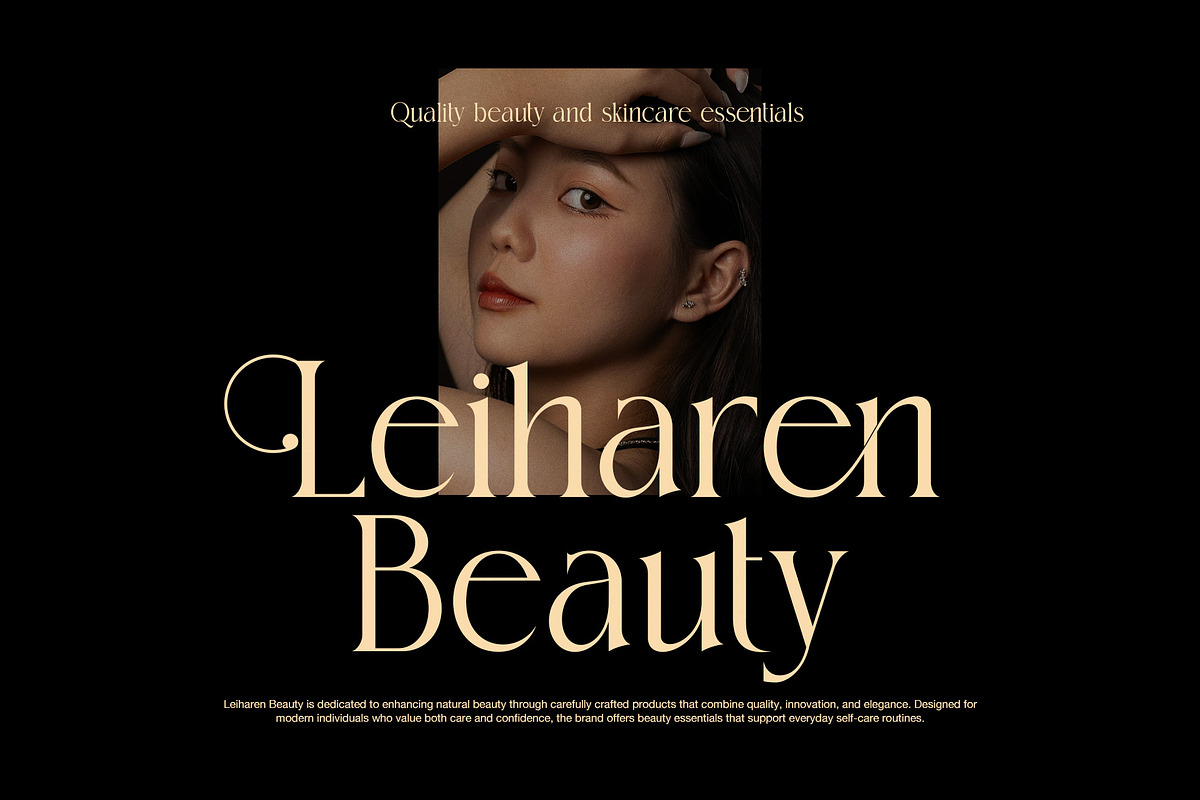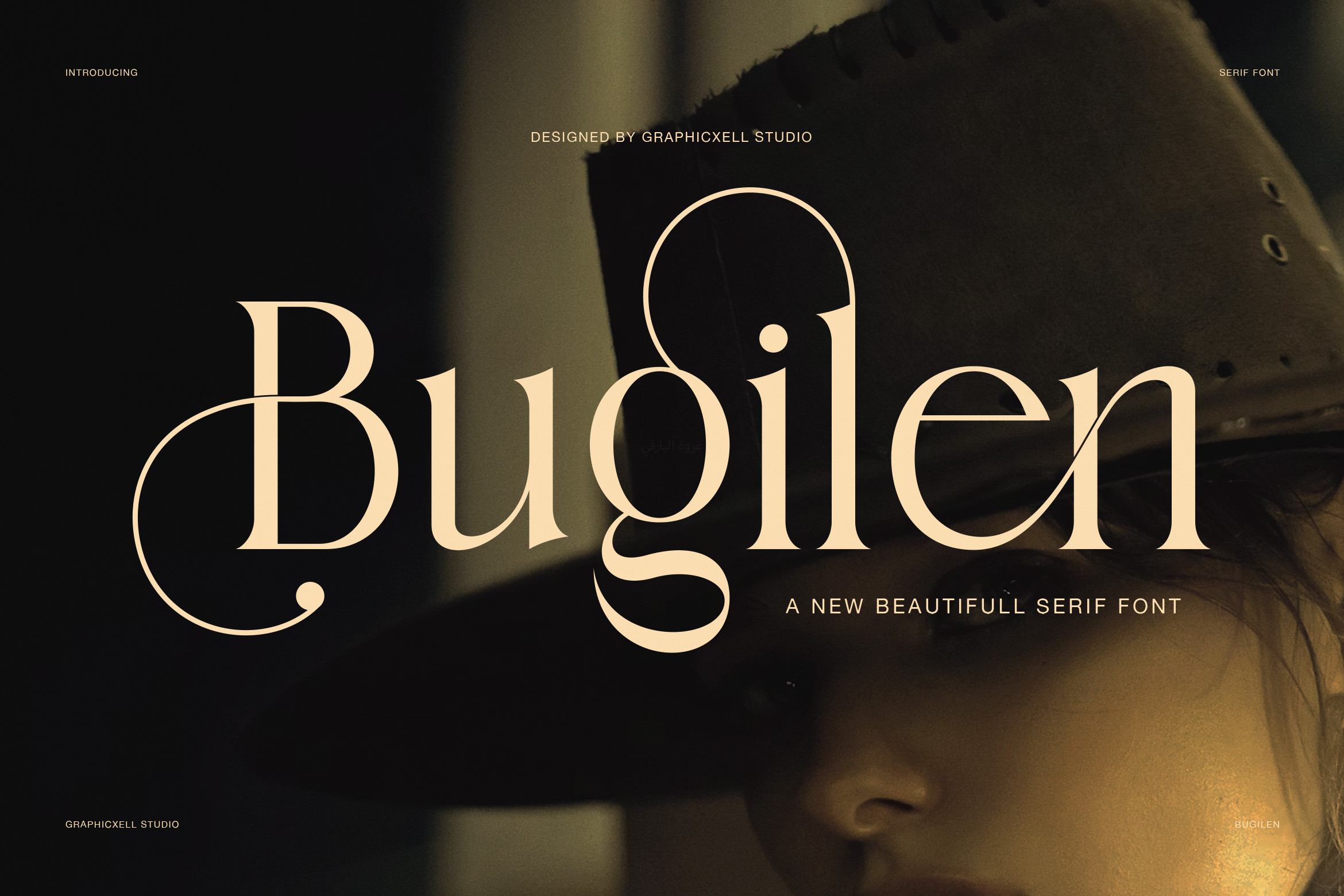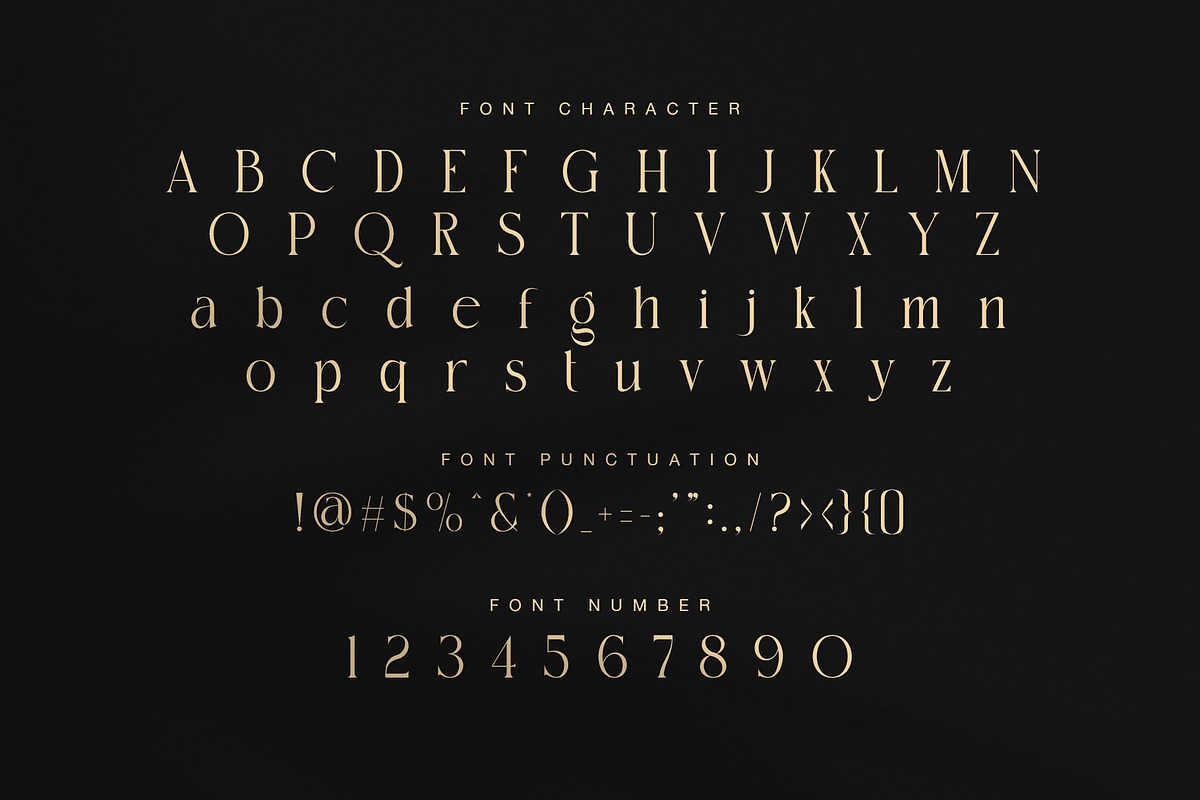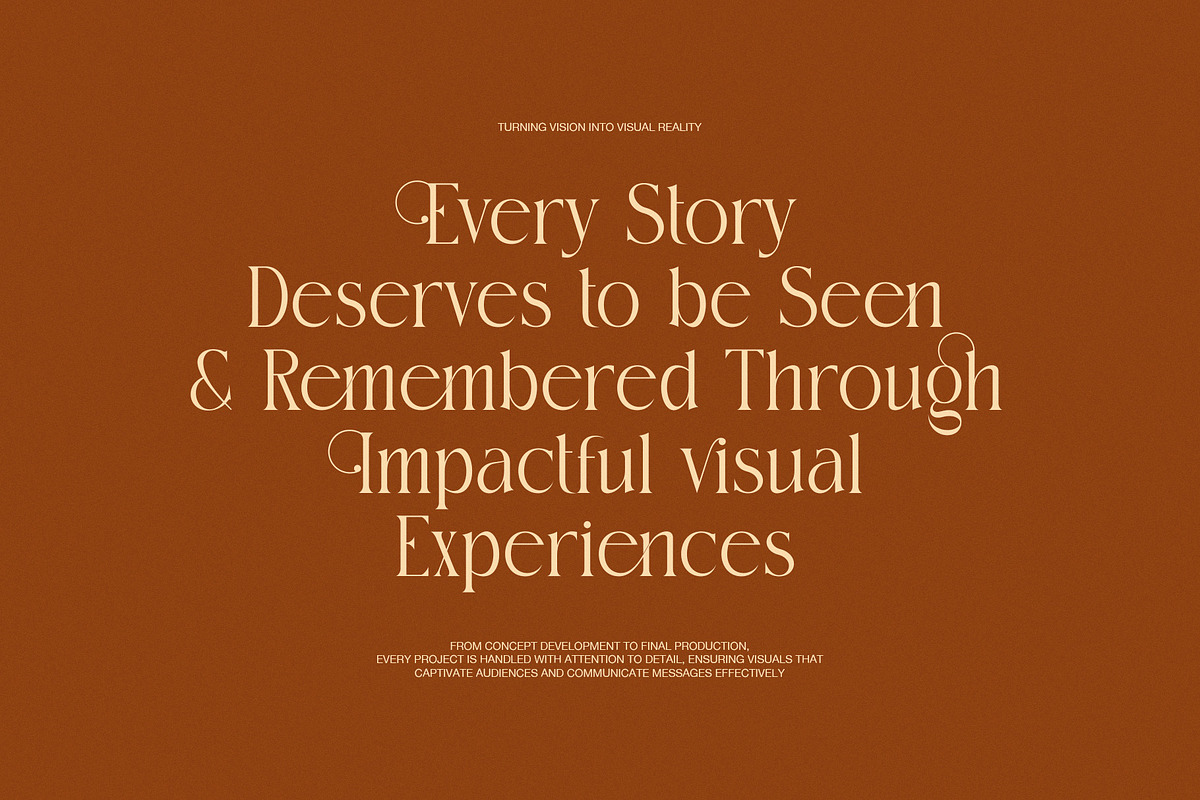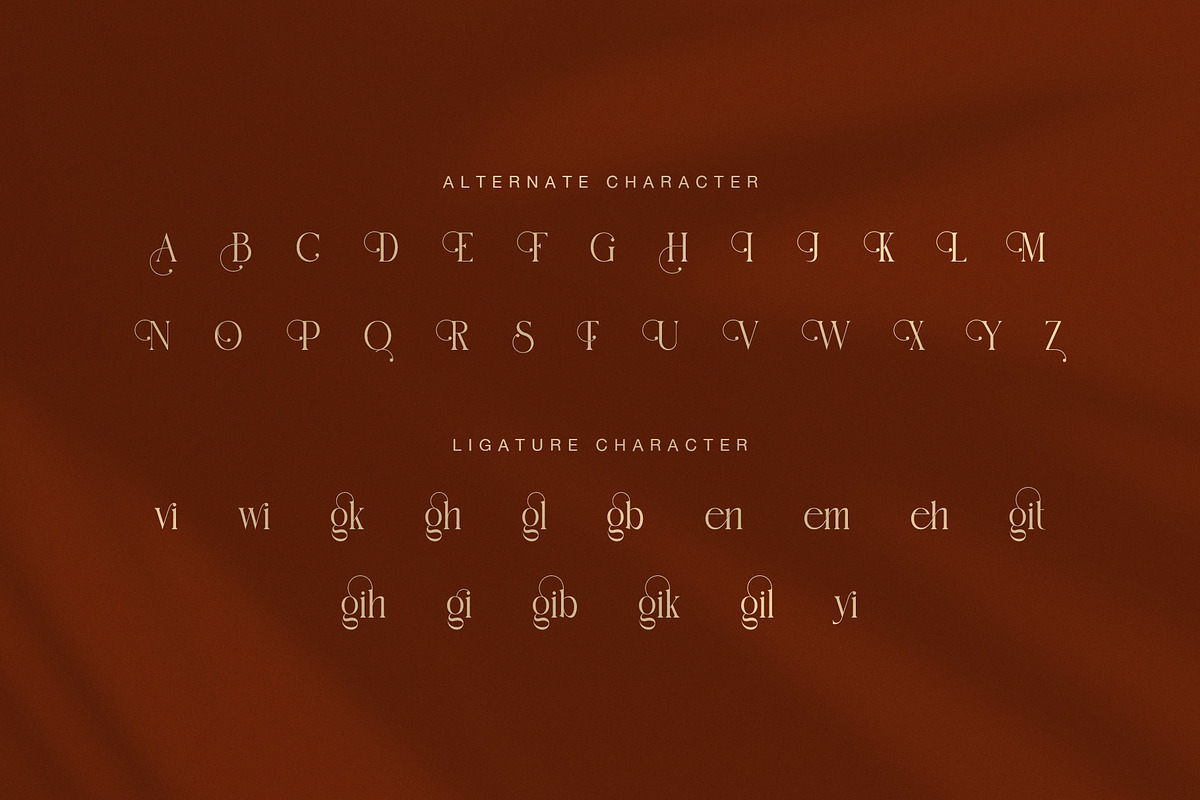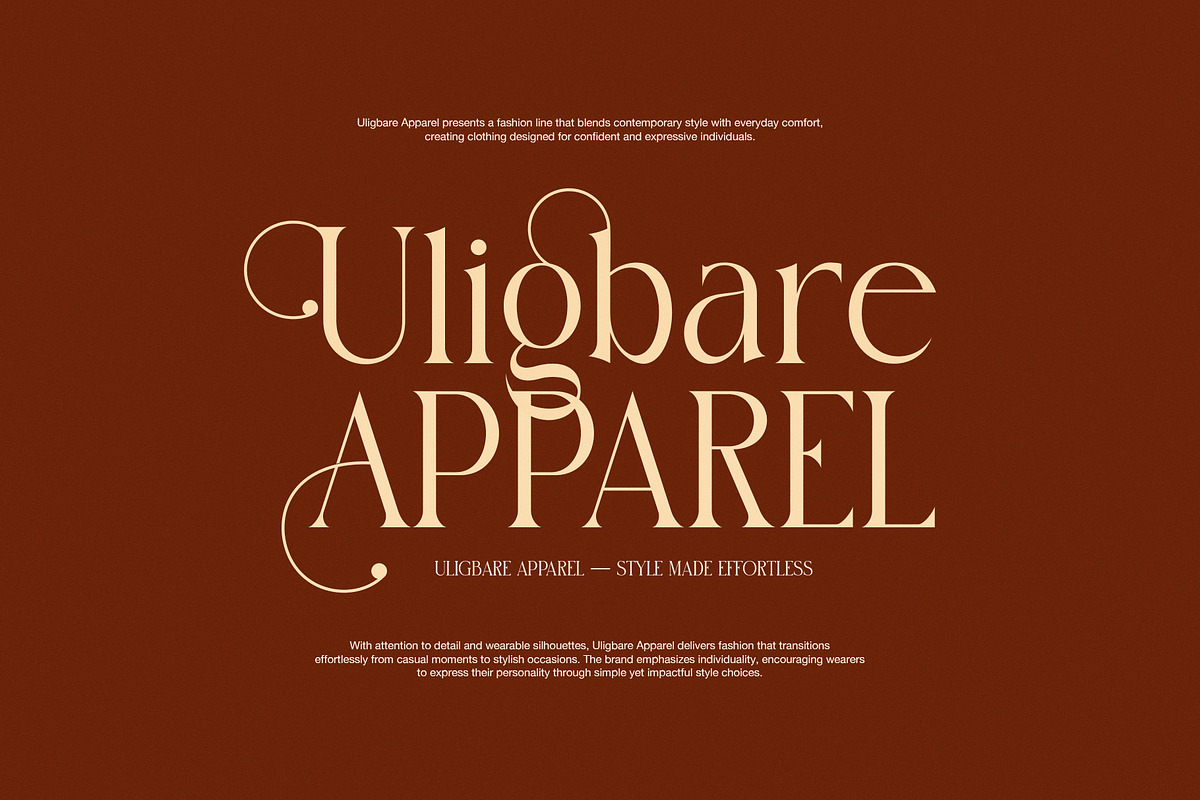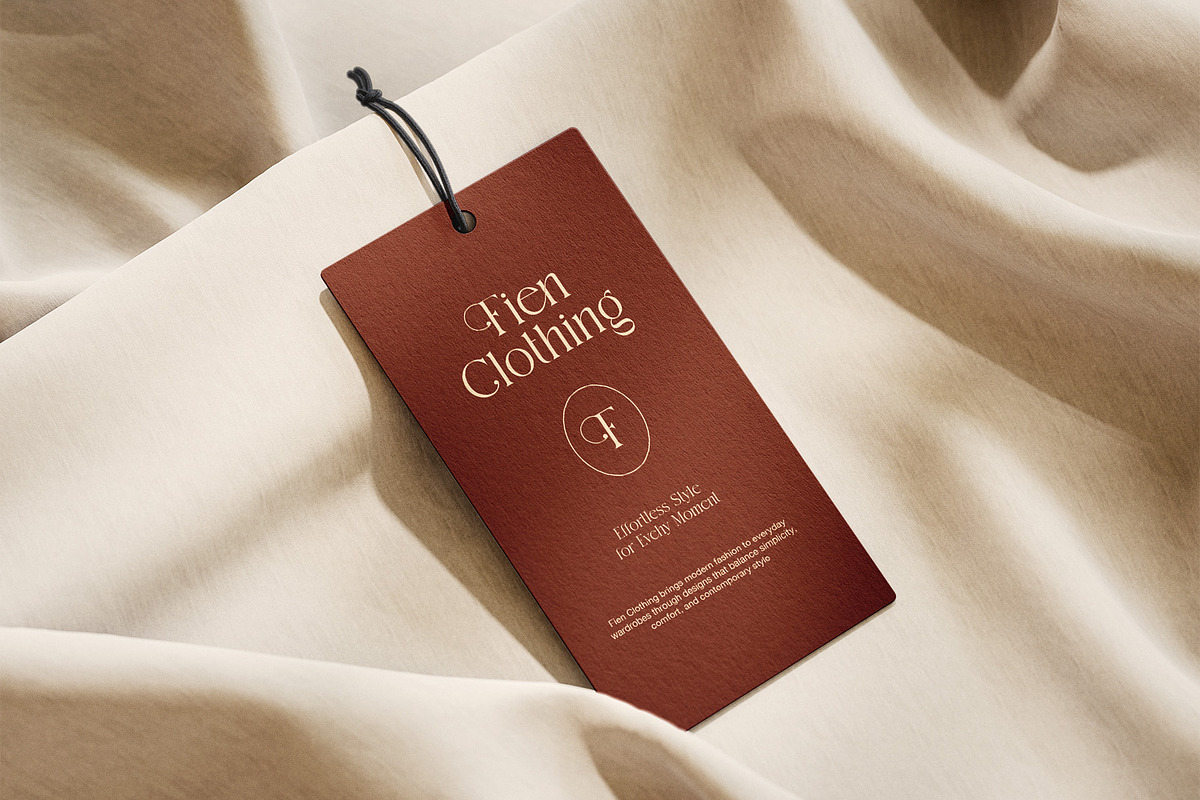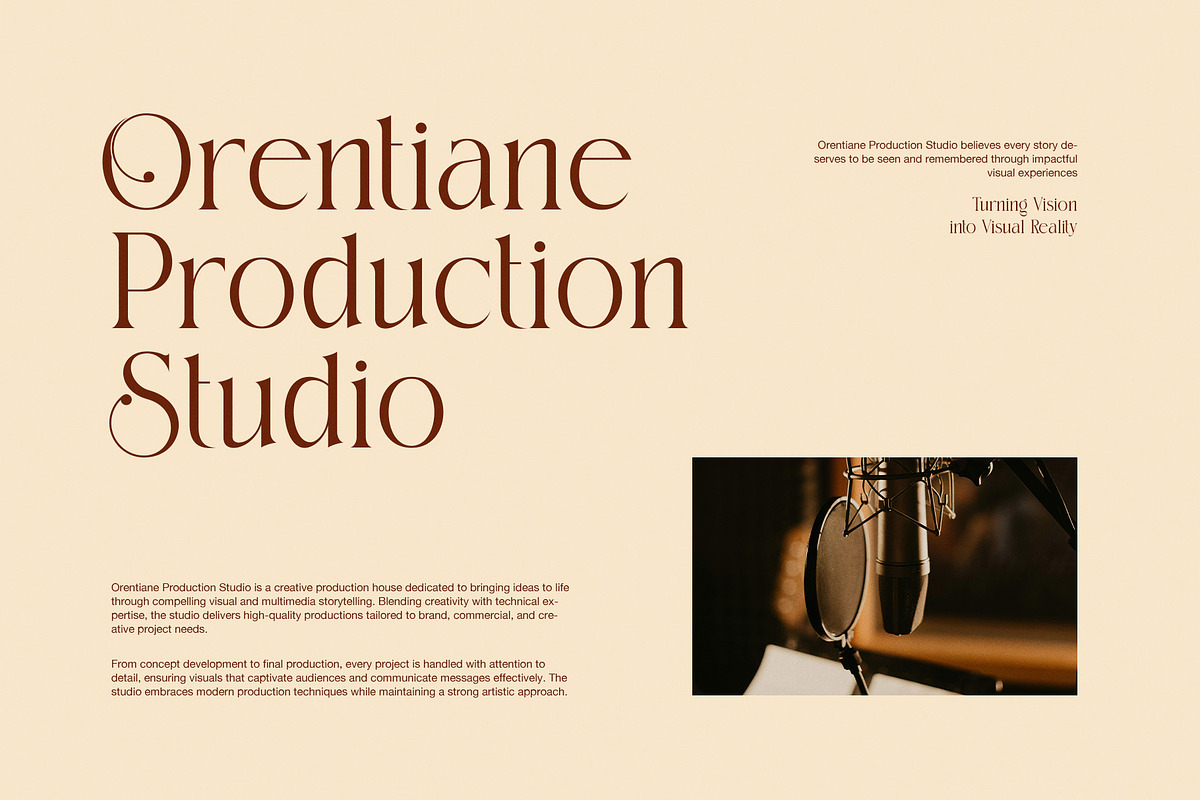
Bugilen Elegant Serif Font
Bugilen Font Style
Bugilen is an elegant serif font with a soft luxury look and a calm modern feel. It blends slim serif structure with refined curves, clean contrast, and graceful details. As a result, it feels stylish, polished, and easy to notice in display work.
At first glance, Bugilen shows a balanced shape. The strokes are thin and neat, while the serifs stay smooth and sharp. In addition, the rounded forms give the font a gentle tone. Because of that, it feels premium without looking too hard or stiff.
Shape and Visual Character
The beauty of Bugilen comes from its flowing letterforms and its delicate alternates. Several uppercase letters have decorative touches, while some lowercase forms bring a soft rhythm to each word. Moreover, the ligatures help the text look more joined and more refined.
This serif font feels clean, yet it also feels rich in mood. It works well for designers who want a classic base with a fresh and feminine finish. Therefore, Bugilen can create a strong visual voice for brands that need beauty, style, and charm.
Best Uses for Bugilen
Bugilen is made for elegant display design. It looks beautiful in fashion branding, beauty packaging, hotel logos, clothing labels, editorial covers, and visual identity work. At the same time, it also fits product tags, social media graphics, invitation designs, and studio branding.
Bugilen is a great choice for:
- fashion branding
- beauty product packaging
- hotel and resort logos
- editorial headlines
- clothing labels
- boutique identities
- social media posts
- studio branding
- Features and Benefits
Bugilen offers more than a pretty look. It gives your work a refined serif style with alternates, ligatures, punctuation, and numbers that support many design needs. In turn, it helps words look more custom and more memorable.
Even better, this font moves easily across many themes. It can look elegant for beauty brands, warm for lifestyle products, and clean for modern editorials. Because of that, Bugilen is very useful for creative projects that need a luxury serif font with strong visual appeal. If you want a font that feels graceful, feminine, and timeless, Bugilen is a smart and beautiful choice.